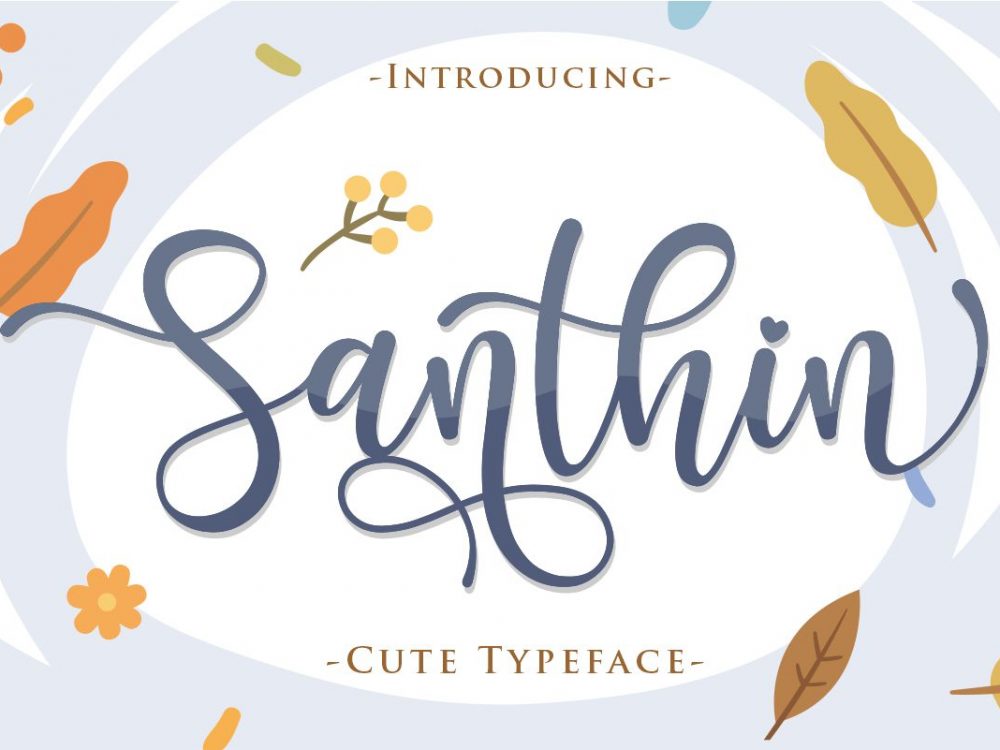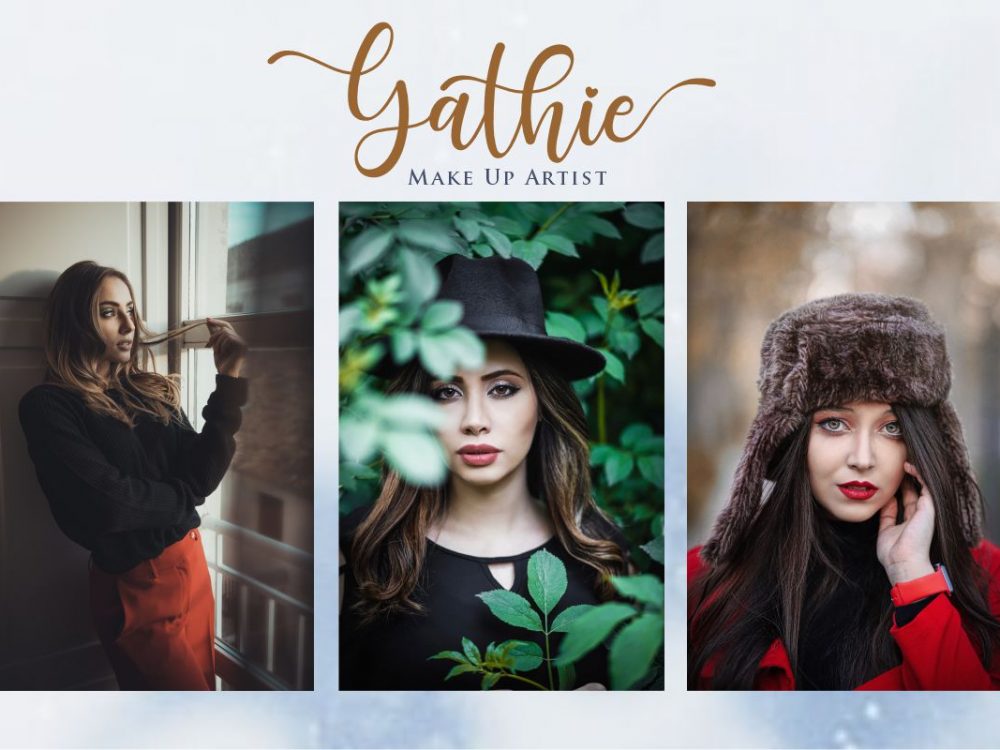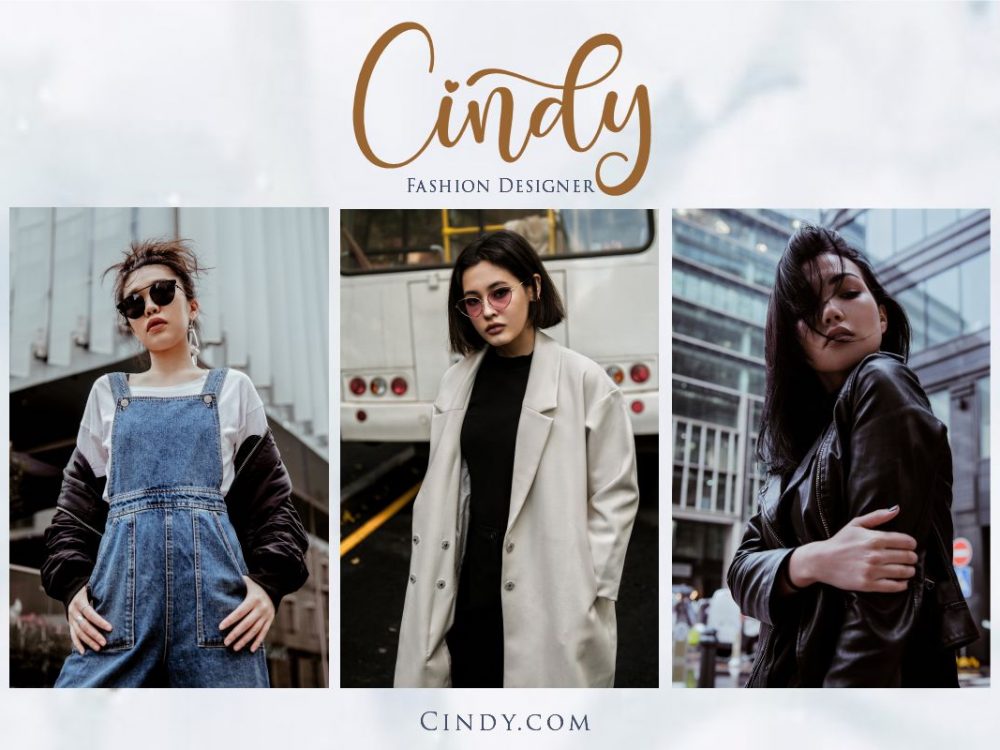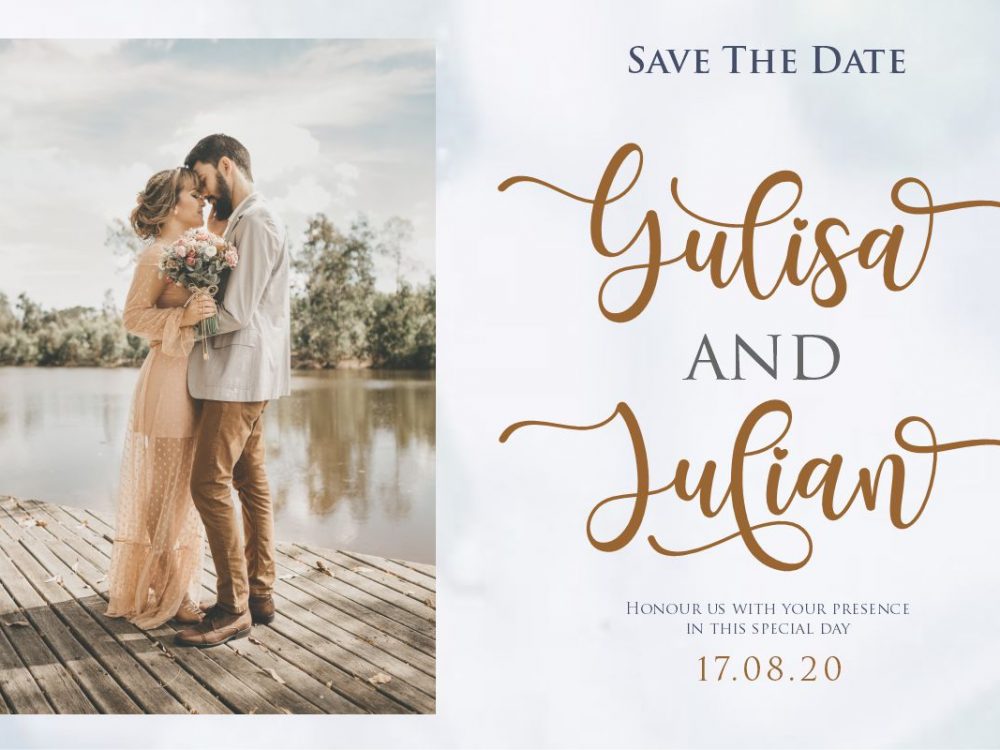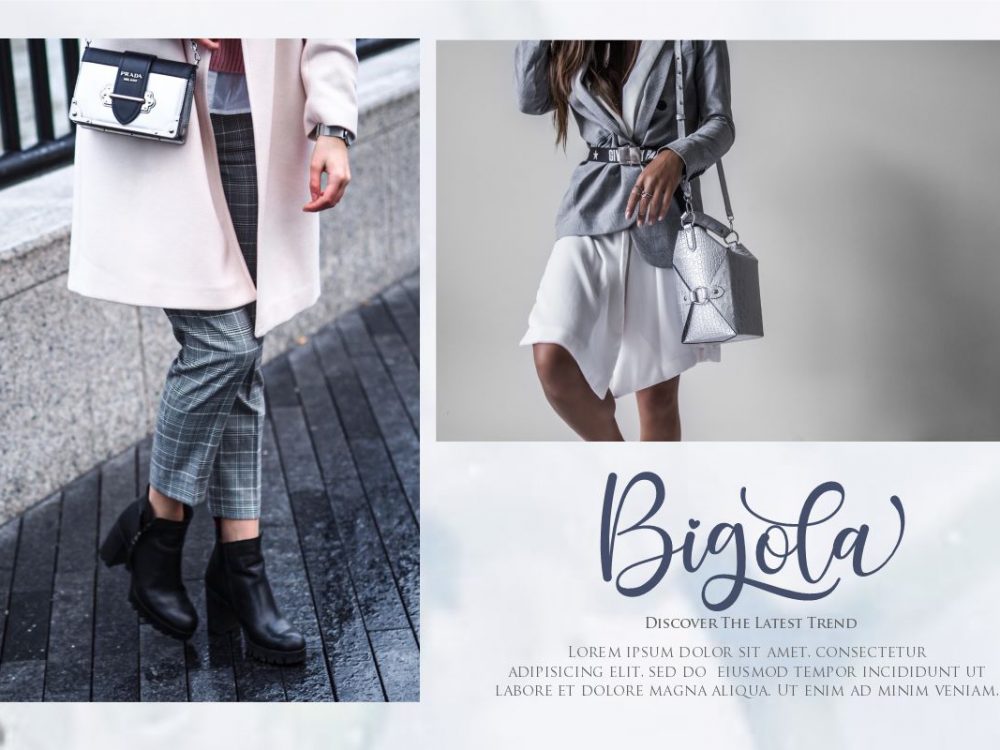
Santhin Free Font
Santhin Free Font is a cute font with an interesting calligraphic style. This font is well suited for creating various design projects that require a scripted font. You can use this font to create memorable romantic posters, wedding invitations, cards, branding, flyers, and more. If you like it don’t forget to check out the full version.